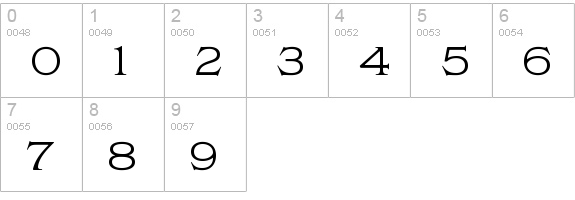
Griffon Light is a refined, elegant variant in the Griffon typeface family \xE2\x80\x94 well suited to elegant body text, refined sub-headings, and luxury branding.
Griffon Light font is a sleek and modern typeface that exudes elegance and sophistication. Its clean lines and graceful curves make it perfect for a wide range of design projects, from branding to editorial design. The light weight of the font adds a touch of airiness and delicacy to any text, making it particularly well-suited for titles and headings. What's even better is that Griffon Light font is available for free download at FontsMarket.com. This means you can easily add this versatile and stylish font to your collection without any cost. Don't miss out on the opportunity to enhance your designs with the timeless appeal of Griffon Light font - download it now and elevate your creative projects to the next level.